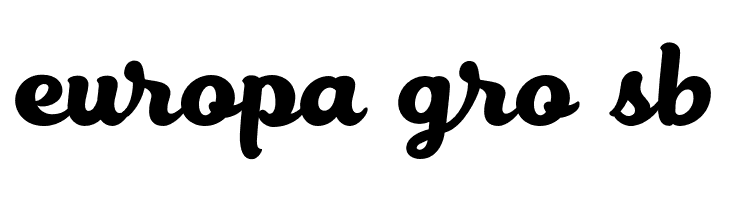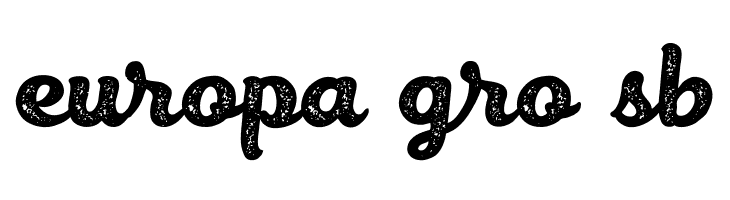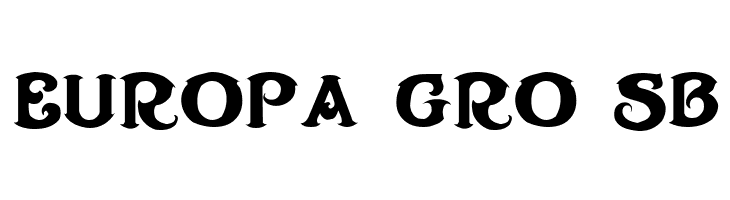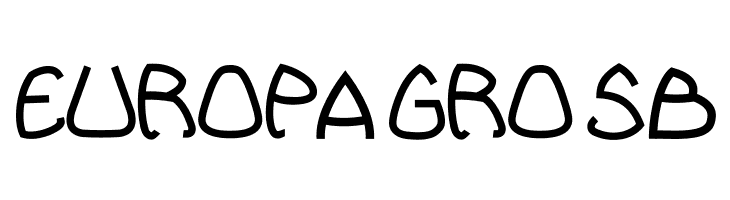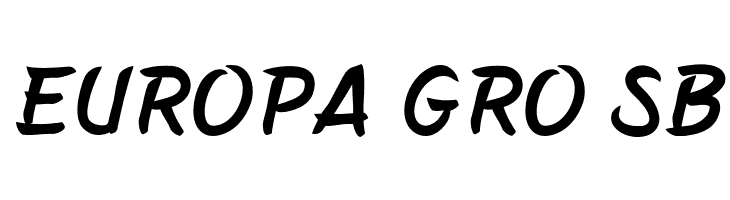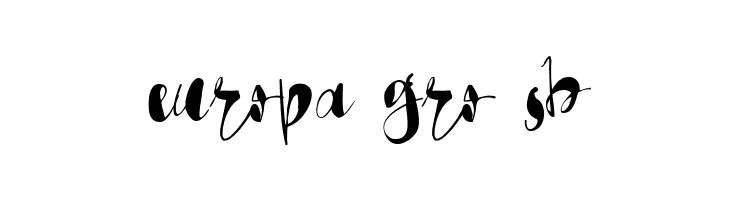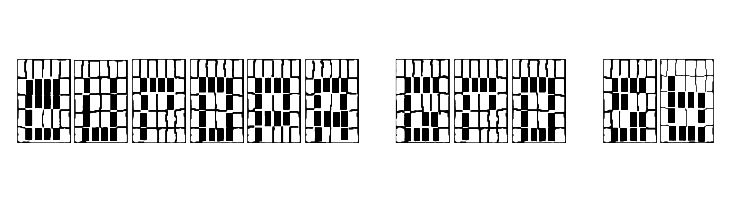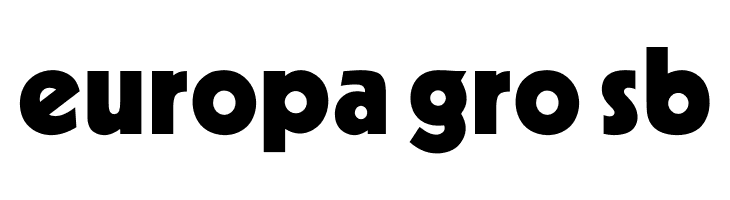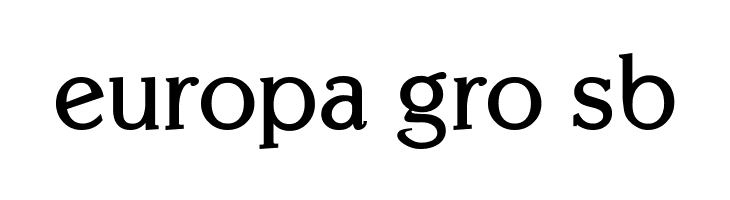
A playful and elegant script font with a handwritten feel.
A decorative font with a mosaic-like, grid-based design inspired by traditional beadwork.
A bold, rounded font with a playful, modern style.
A bold, classic serif font with moderate contrast and excellent legibility.
A bold, cursive font with smooth, flowing lines and a lively appearance.
A bold, textured font with a vintage, hand-drawn appearance.
A bold, decorative font with a vintage flair and intricate details.
A playful, hand-drawn font with dynamic strokes and a whimsical style.
A bold, italic handwritten font with a dynamic and fluid style.
A whimsical, cursive font with elegant loops and dynamic contrast.